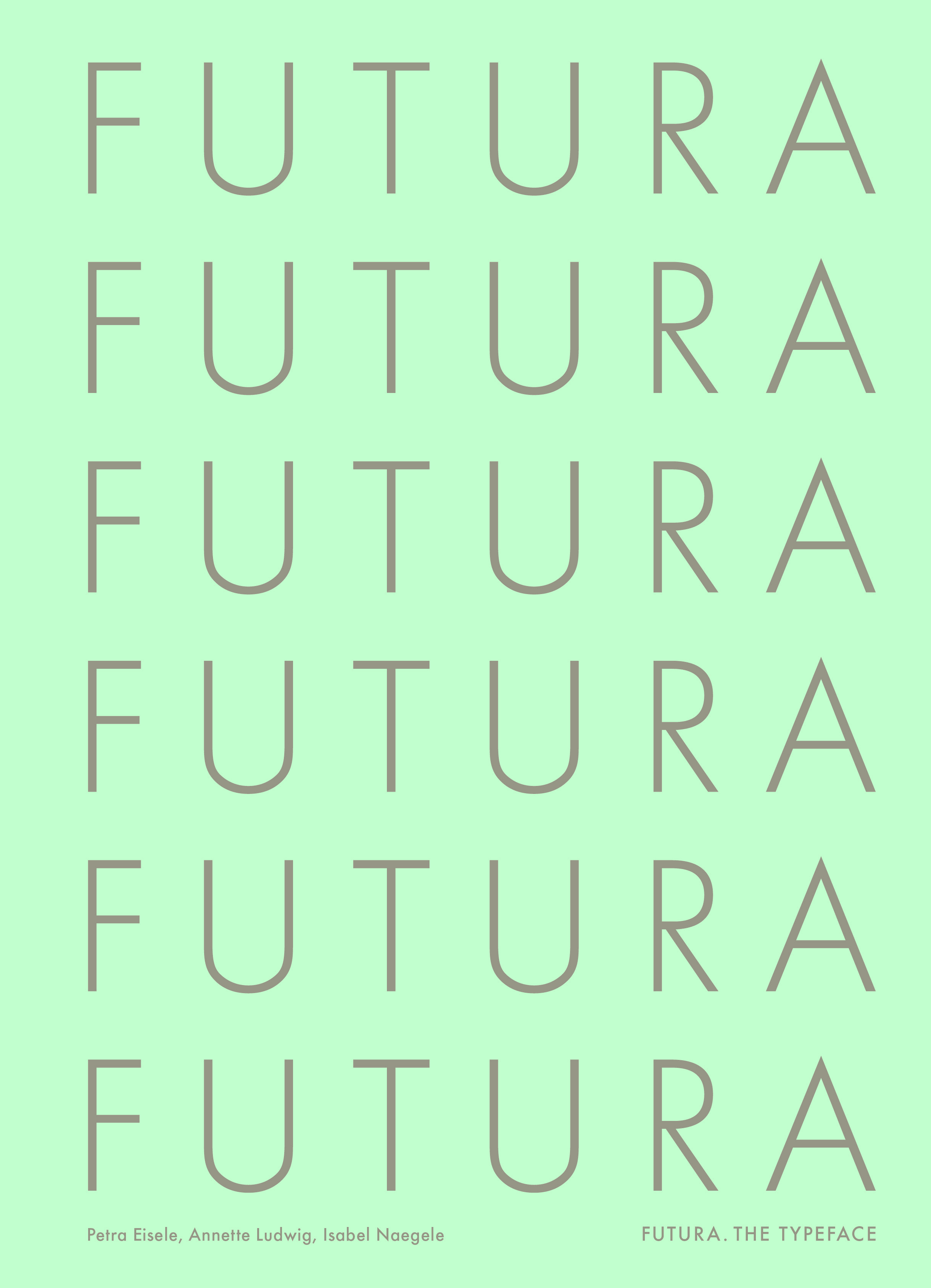
Futura: The Typeface
This is a stunning examination of one of the most popular typefaces ever created, Futura. Celebrating its 90th anniversary this year, the story of Futura is a fascinating one. Charting its Bauhaus origins to its use as the first font on the moon in 1969, this book tells the story of how the typeface went from representing radicalism in design to dependability. It is durable and timeless, and is worthy of being rediscovered and celebrated.
Includes essays written by renowned design writers including Steven Heller, Erik Spiekermann and Christopher Burke. Edited by Petra Eisele, Professor of Design History and Design Theory at the University of Mainz; Dr. Annette Ludwig, Director of the Gutenberg Museum and Isabel Naegele, Professor of Typography at the University of Mainz.